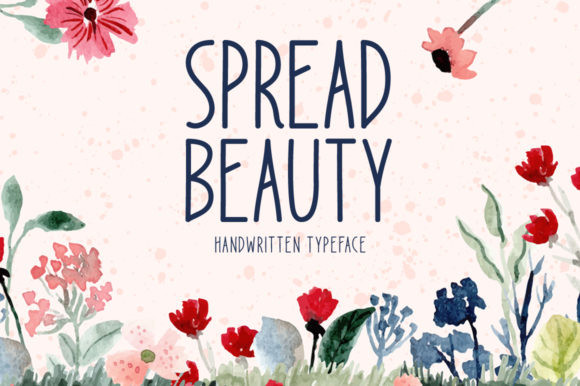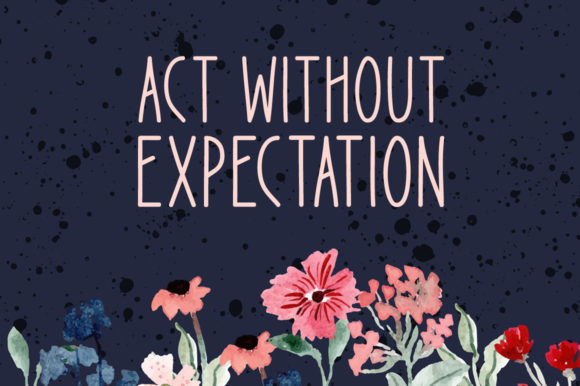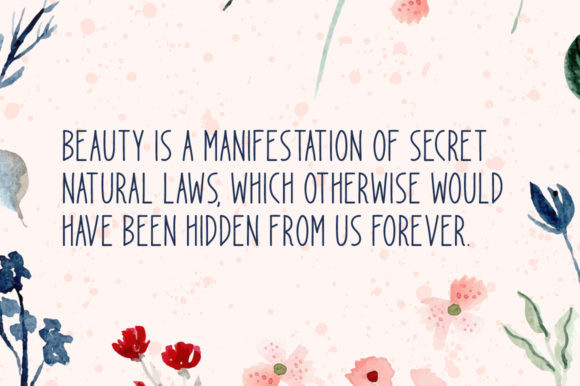
Spread Beauty Font
Spread Beauty is a whimsical display font. This stunning font will elevate a wide range of design projects to the highest level, be it branding, headings, wedding designs, invitations, signatures, logos, labels, and much more!